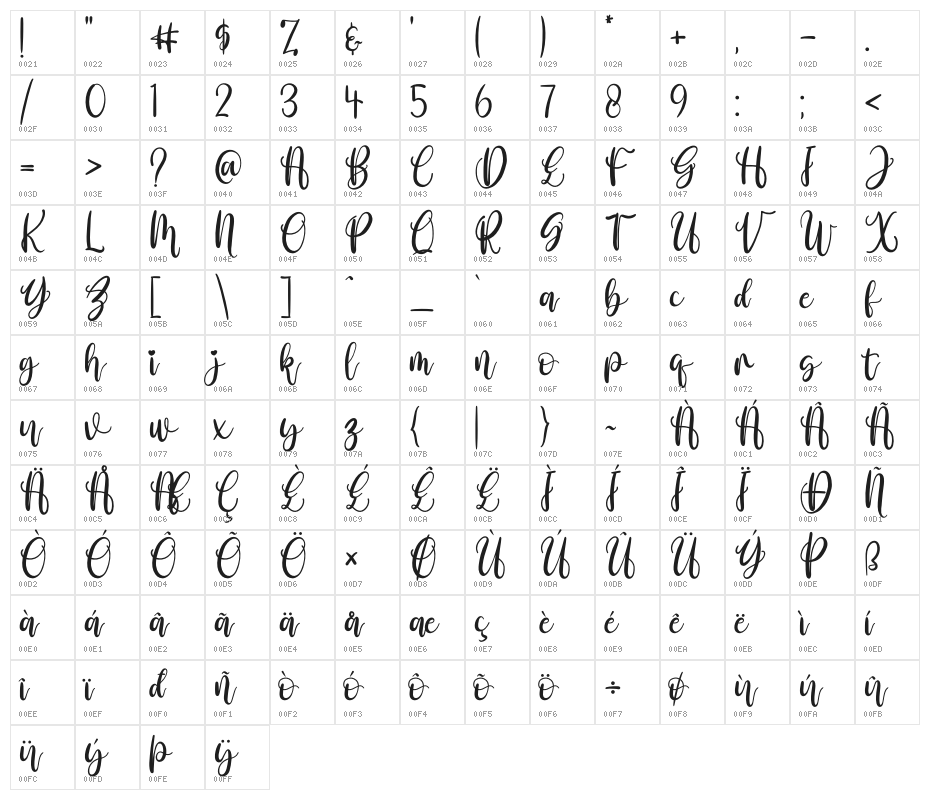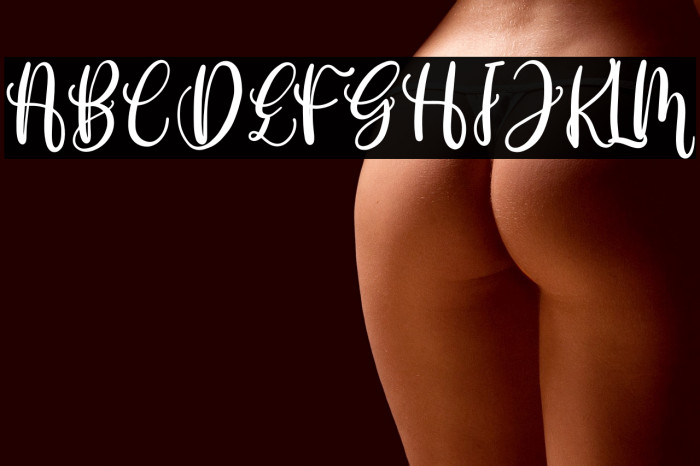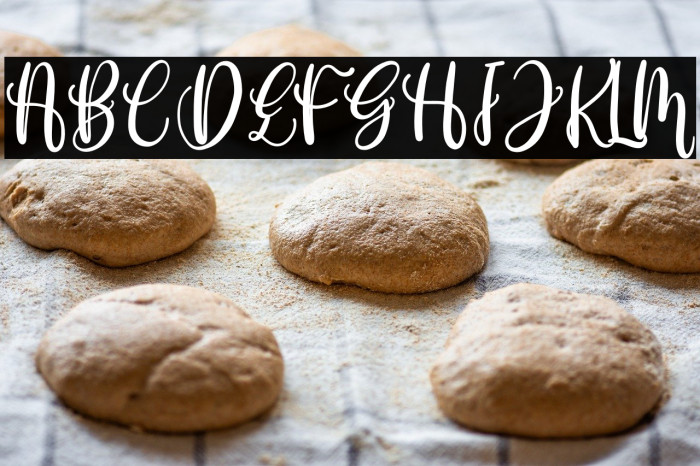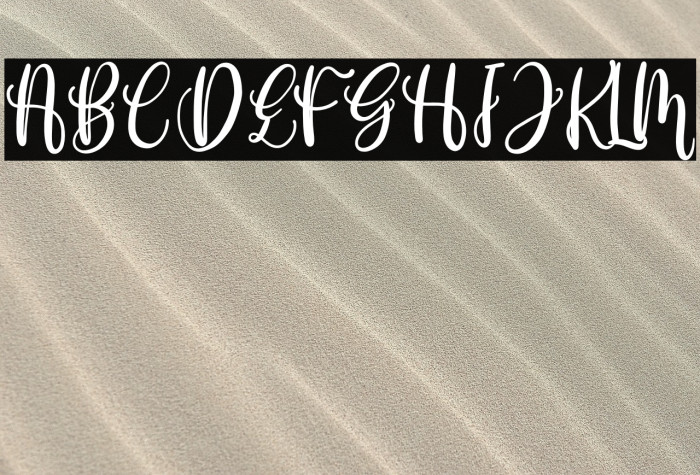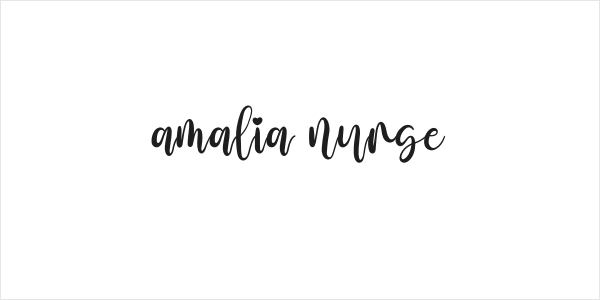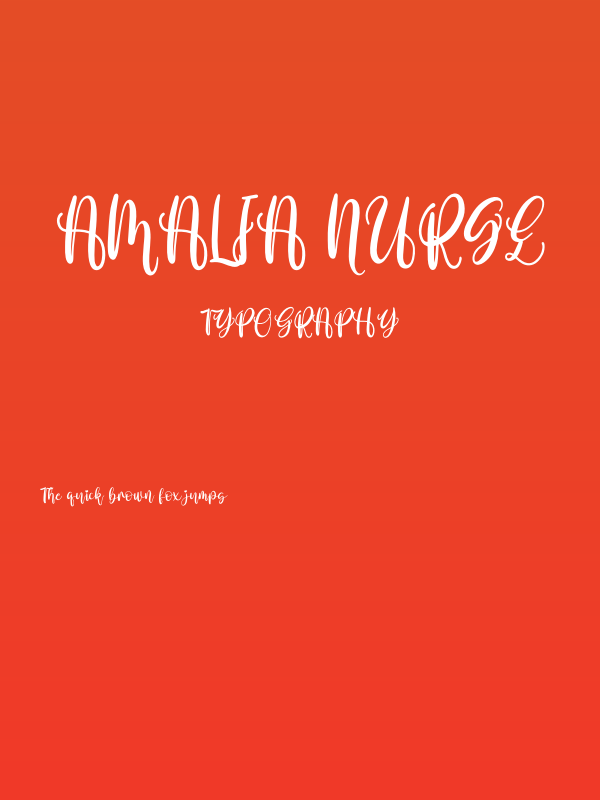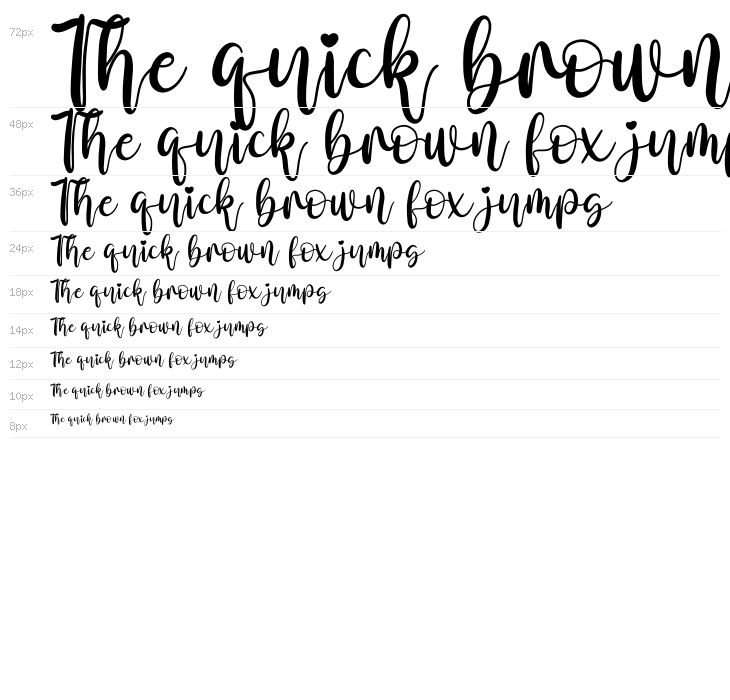
amalia nurse Font
amalia nurse Description
This font features a playful and elegant script style with a handwritten appearance. The letters are connected with smooth, flowing strokes, giving it a dynamic and lively feel. The uppercase letters are bold and prominent, while the lowercase letters maintain a consistent flow with slightly exaggerated loops and curves. The numbers are distinct and maintain the same playful style, making them easily readable. Special characters are creatively integrated, maintaining the overall aesthetic. This font is perfect for projects that require a personal touch, such as invitations, greeting cards, or branding materials.
| Proposed Projects | Ideal for invitations, greeting cards, branding, and any project needing a personal touch. |